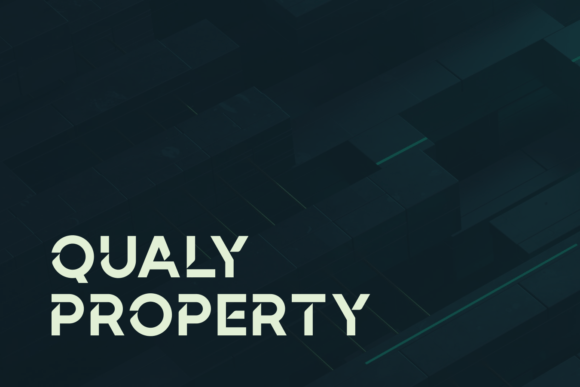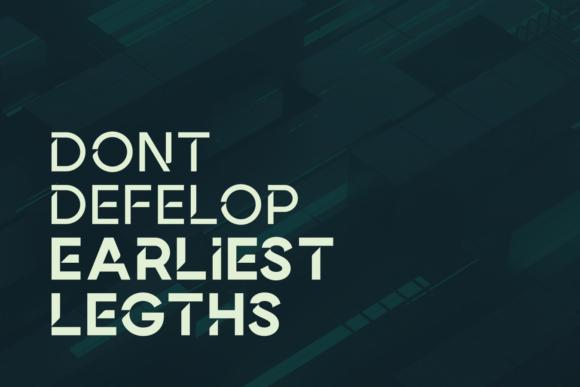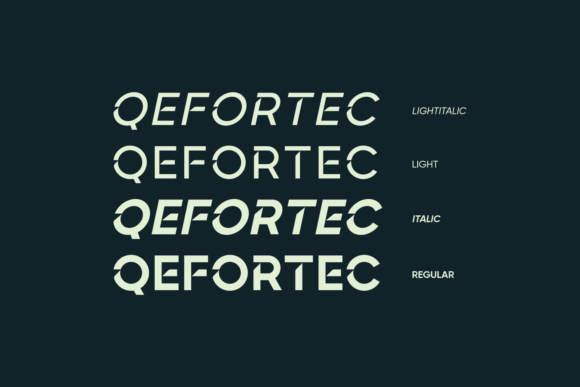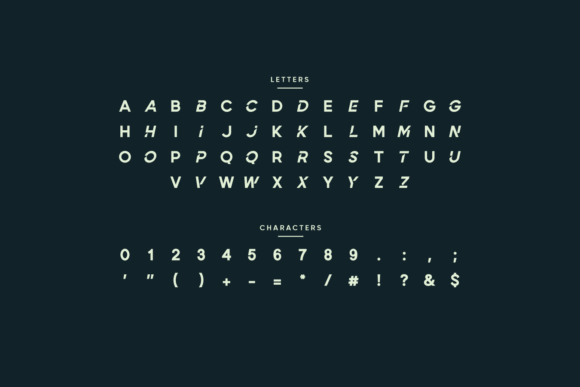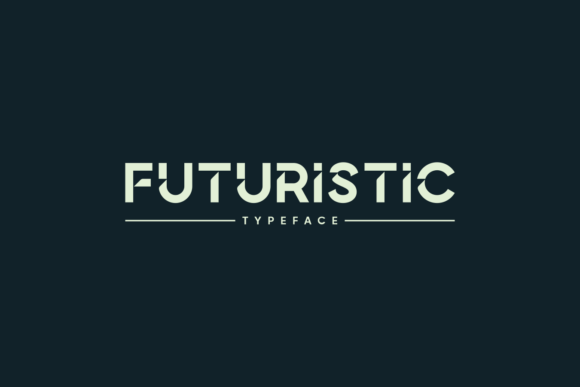
Enter the Efortec Font, a modern sans display font designed to take your projects to the next level. With its sleek and sophisticated design, Efortec Font is the perfect addition to any font library. Whether you’re working on a logo, a brochure, or a social media campaign, this font has the potential to make a lasting impression. And for designers, that’s priceless.
Efortec Font Key Features
- Unique Characteristics: Efortec Font features a unique blend of modern and industrial elements, with clean lines, geometric shapes, and a bold, futuristic feel.
- Character Set: The font includes a comprehensive character set, covering Latin, Cyrillic, and Greek alphabets, as well as a range of punctuation and special characters.
- Font Styles: Efortec Font is available in multiple styles, including Regular, Bold, Italic, and Bold Italic, allowing designers to create a wide range of visual effects and emphasis.
Efortec Font Review
Overall, I was quite impressed with the Efortec Font. ✨ Its modern design and sleek lines make it perfect for a variety of projects, from corporate websites to mobile apps.
- The font’s versatility ✨ is its strongest point. It’s suitable for both headings and body text.
- The font’s high x-height makes it easy to read, even at smaller sizes ✨.
- The font’s modern feel gives it a professional touch ✨.
Limitsations
- The font’s limited character set is a major drawback ⚠️. It’s not suitable for languages that require a wide range of characters.
- The font’s weight system is inconsistent ⚠️. Some weights feel too similar, while others are too different.
Despite its limitations, the Efortec Font is still a great choice for many projects. Its modern design and high readability make it a solid option for designers looking for a versatile font. However, it may not be the best choice for projects that require a wide range of languages or a more complex weight system.
Efortec Font is suitable for:
- Modern and sleek designs
- Professional and corporate branding
- Graphics and illustrations
- Headings and titles